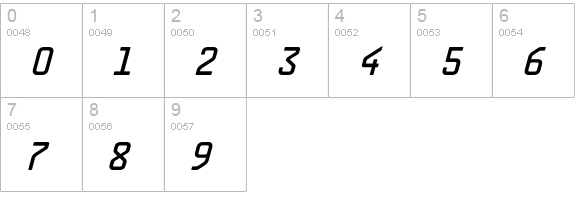
Alphaville-Oblique is a distinctive, italic variant in the Alphaville typeface family \xE2\x80\x94 well suited to design and typography projects.
Alphaville-Oblique font is a sleek and modern typeface that exudes sophistication and style. Its unique oblique design adds a touch of elegance to any project, making it perfect for branding, advertising, and editorial design. The clean lines and sharp angles of Alphaville-Oblique font give it a contemporary and edgy feel, making it a versatile choice for a wide range of applications. This font is not only visually striking, but also highly legible, ensuring that your message gets across clearly and effectively. Whether you're designing a logo, creating a website, or crafting a print layout, Alphaville-Oblique font is sure to make a bold statement. Best of all, Alphaville-Oblique font is available for free download at FontsMarket.com, giving you access to this stunning typeface without any cost. Don't miss out on the opportunity to elevate your designs with Alphaville-Oblique font today!